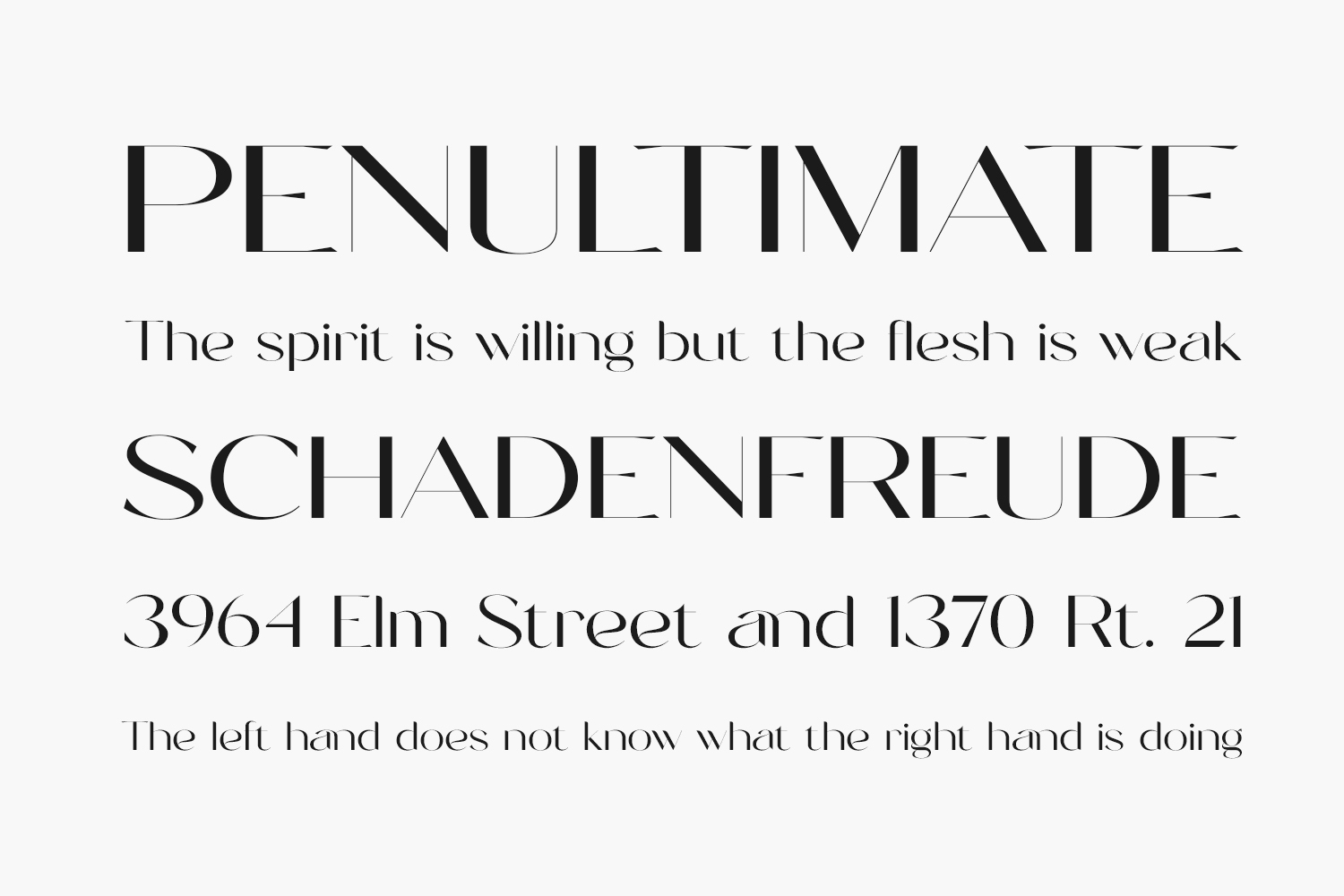
Rantera Free Font is a sleek and modern sans-serif typeface that exudes sophistication and elegance. With its clean lines and minimalistic design, it is the perfect choice for any project that demands a touch of class. Whether you’re designing a website, creating marketing materials, or crafting a sleek logo, Rantera Free Font will add a touch of style and professionalism to your work. Its versatility also makes it suitable for both digital and print designs. Download it now and elevate your designs to the next level.
Designed by Mujiono Muji Utomo